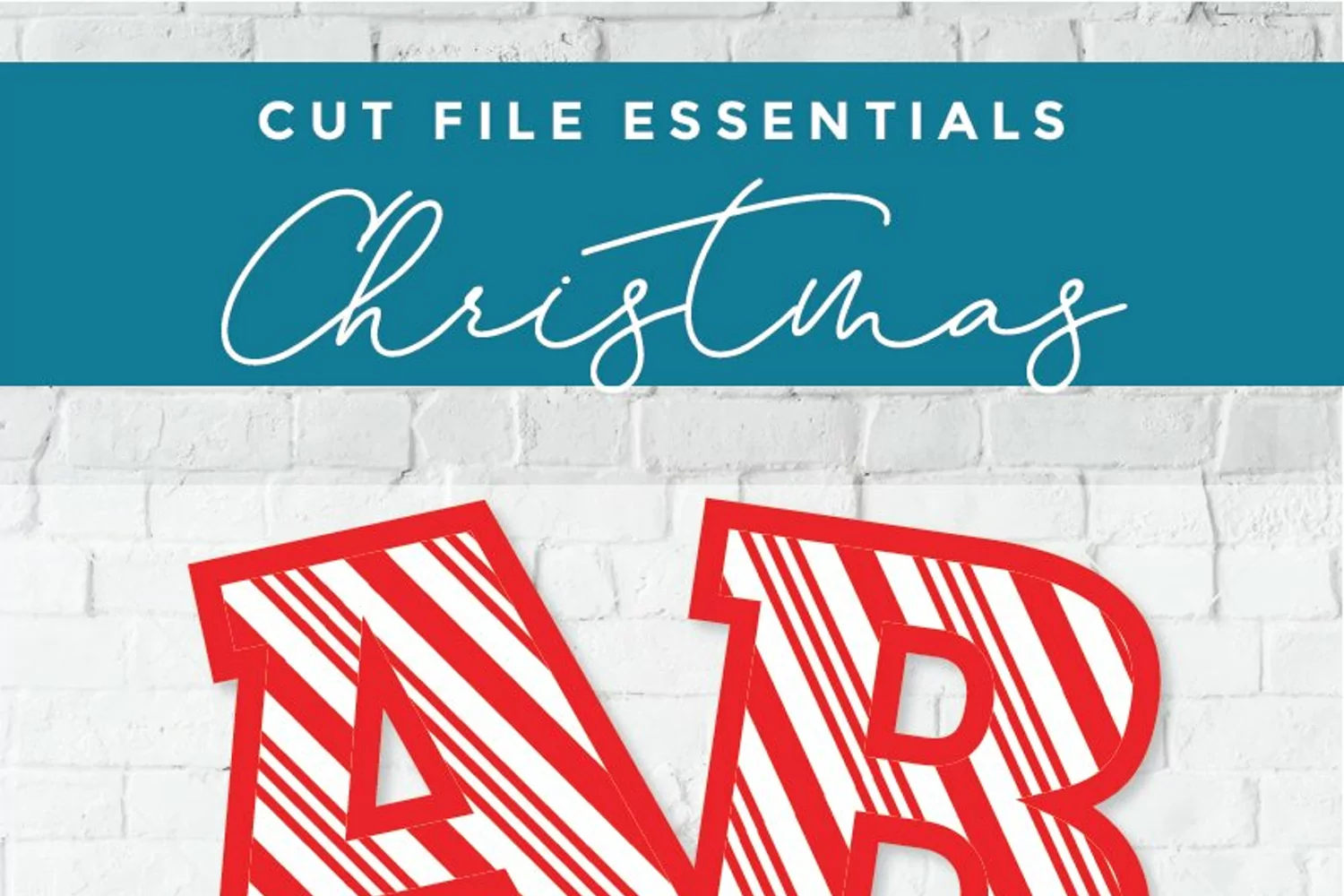
Christmas font - a Candy Cane font with candycane letters
This cute Candy cane letters OTF installable font is perfect for Christmas cards, parties, and more!
Instant Download: This super-cute candy cane letter font is perfect for holiday season decor - use the letters to create festive cards, stockings and banners!